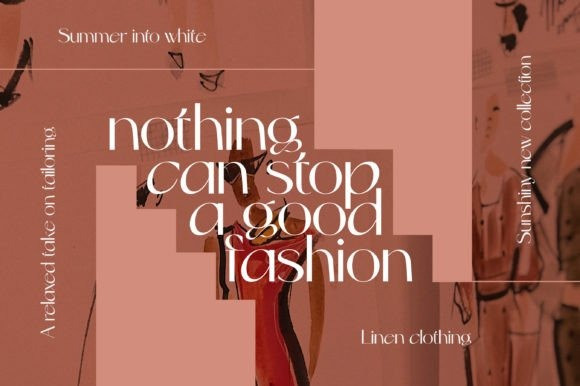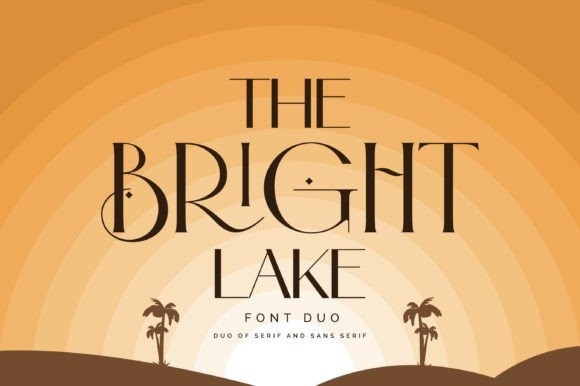
The Bright Lake Duo Font
The Bright Lake Duo is a unique combo of serif and sans serif fonts with stunning ligatures and alternates. With this stylish font duo, you can explore your creativity in an unlimited way. Masterfully designed to become a true favorite, this font has the potential to bring each of your creative ideas to the highest level!